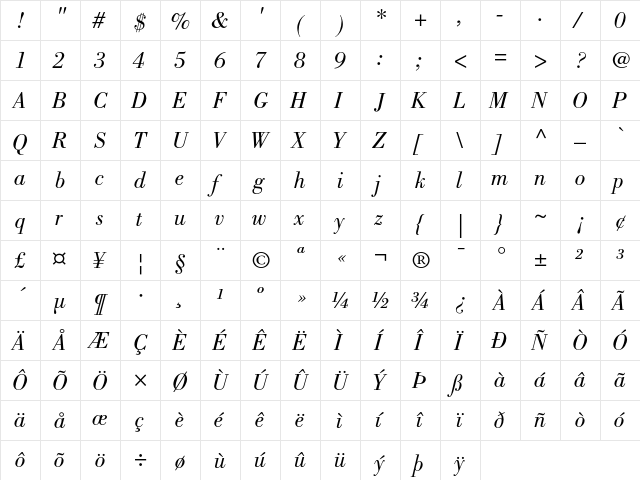
Bodoni Book Italic Font Preview
Bodoni Book Italic
Bodoni Book Italic Font Details
Design Context for Bodoni Typeface
Bodoni is a composed and adaptable typeface that performs quietly and consistently across a wide range of design contexts. Its italic angle brings a sense of urgency and motion to the letterforms.
Pro Tip: Try Bodoni for annotation and caption copy alongside an upright companion — the contrast in angle creates a dynamic but ordered typographic system.